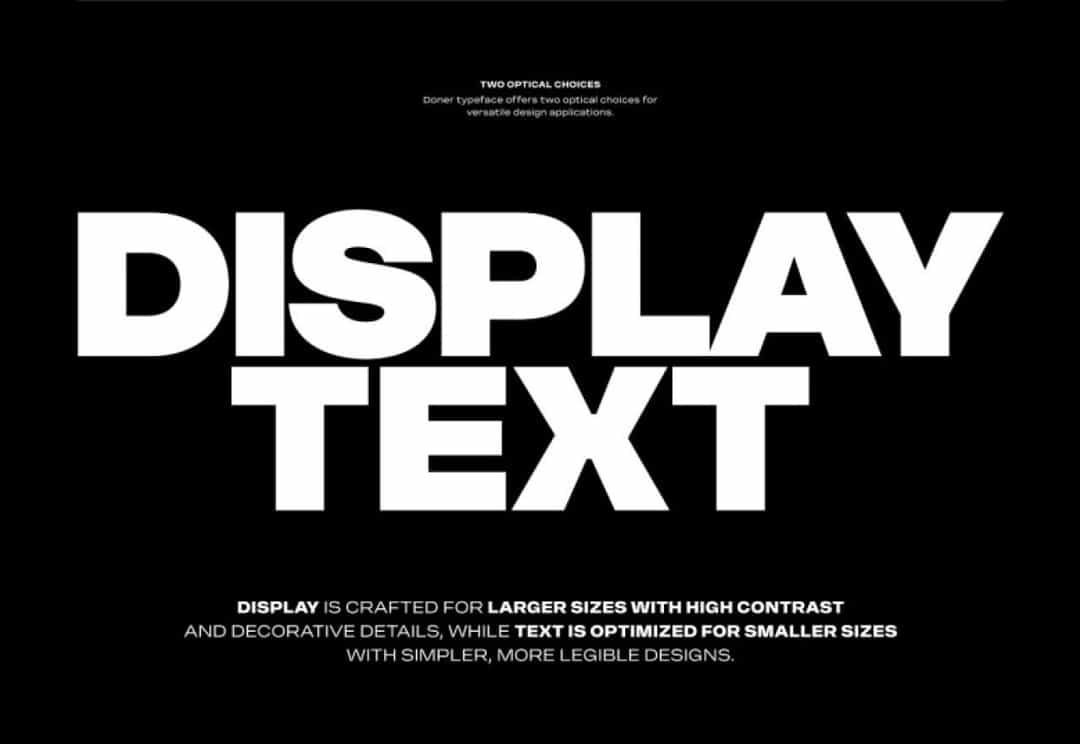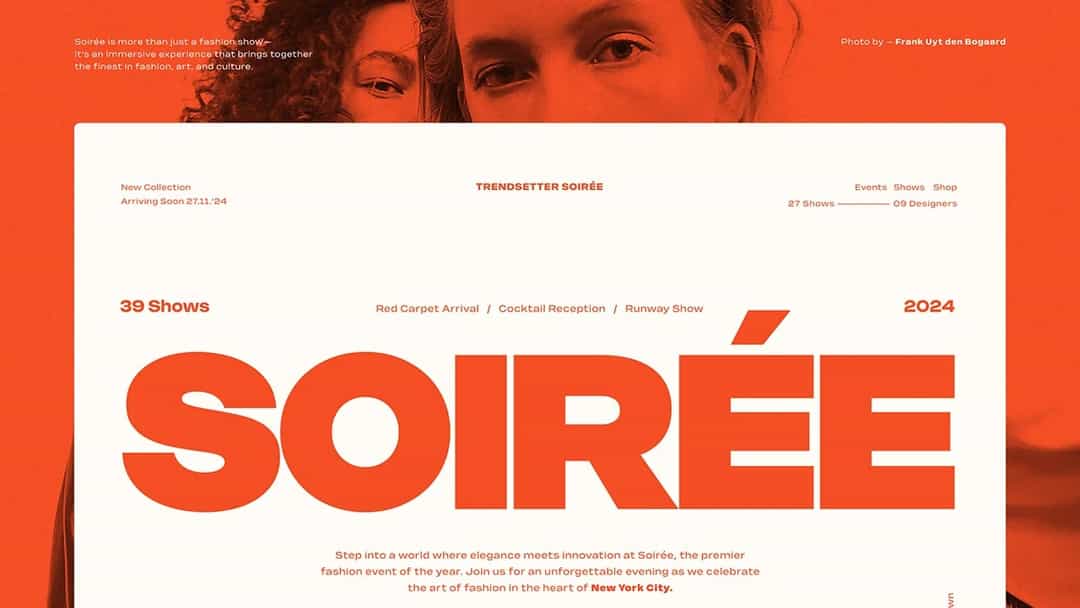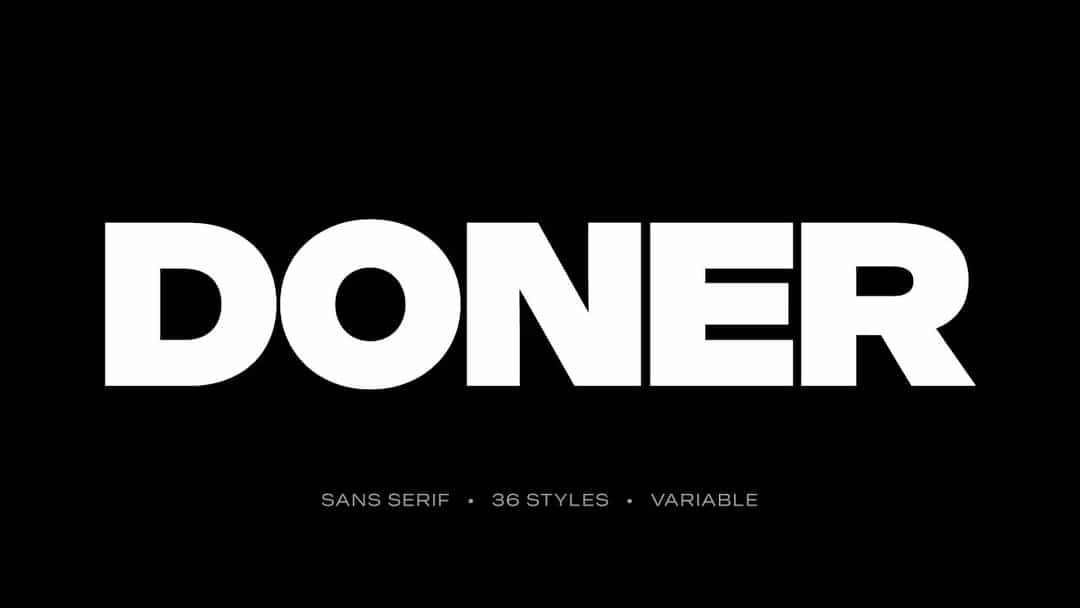
Doner Font Family
Doner is a modern sans serif font family. it was to draw its influence from the 90s poster and magazine advertising genres. Different from the neutral typefaces, Doner adds charisma and style to your work thus making your text stand out and communicate your personality. Doner offers two optical choices: Graphics and Keywords. The Text version is optimized for readability at very small sizes to provide the best reading experience regardless of the application being used.